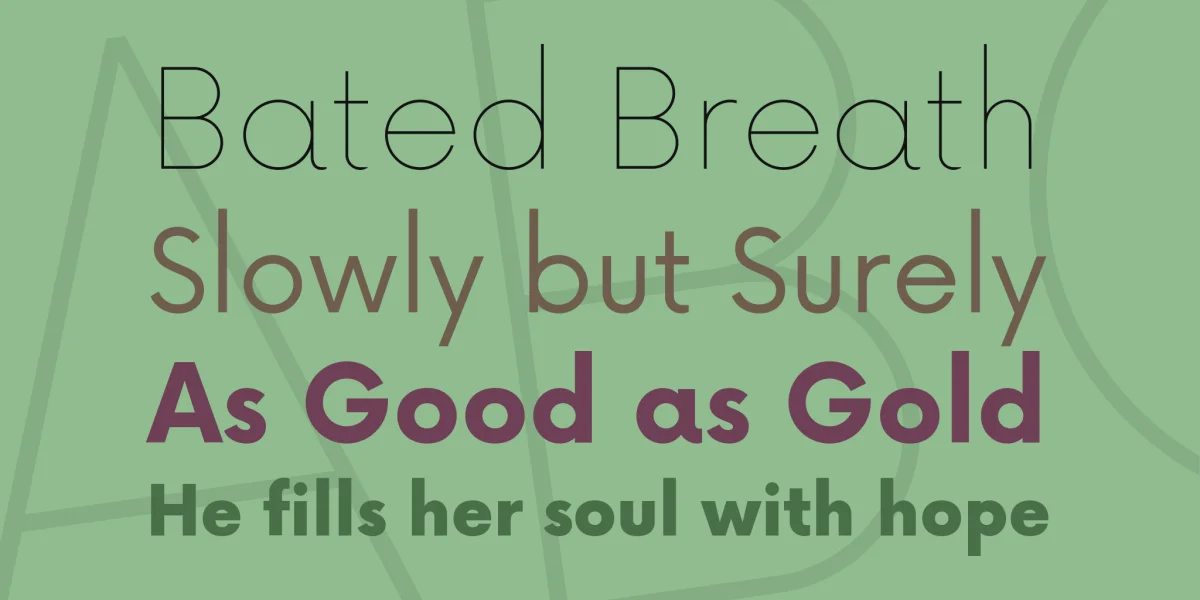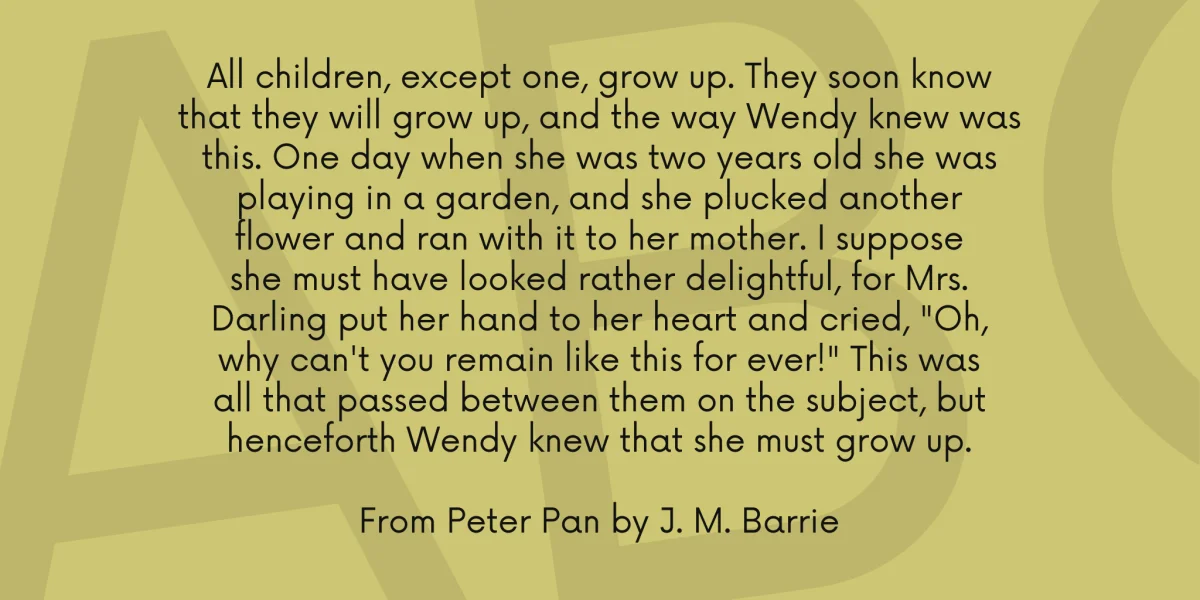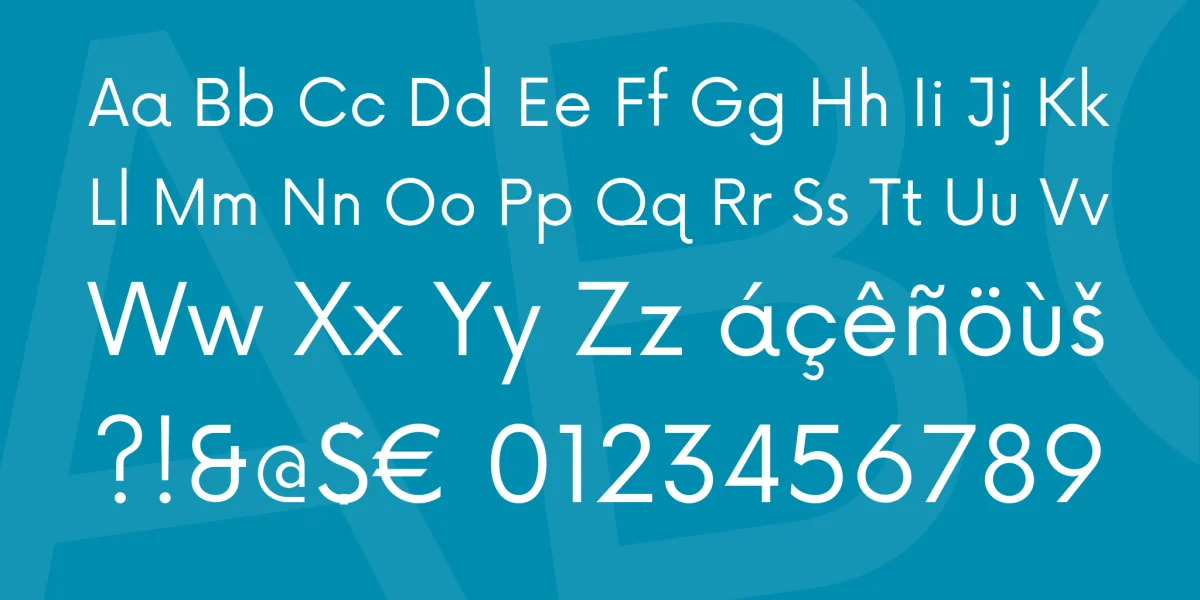
Now Alt Typeface is a simple geometric typeface by Alfredo Marco Pradil. Now Typeface is open source. Now Alt is an alternate version of the Now typeface. The only difference is the lowercase "a".